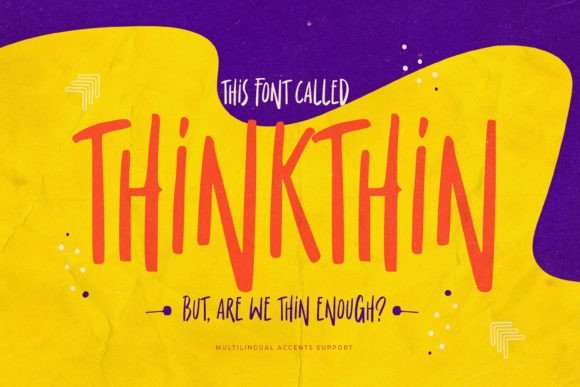
Thinkthin: A Display Font That Commands Attention
As a marketing specialist who lives in the space between message and medium, I know how much hinges on a single typeface choice. Thinkthin isn’t just another display font—it’s a deliberate visual cue: clean yet textured, elegant yet energetic, minimal yet full of dramatic movement. Its natural, slightly organic stroke contrast and airy proportions give it presence without heaviness—ideal for digital environments where clarity and impact must happen in under two seconds.
Thinkthin thrives where attention is scarce and intent is high. On Instagram feeds, its confident letterforms stand out against busy backgrounds without shouting. In YouTube thumbnails, it delivers instant readability at 120px—even with thumbnail compression or dark mode rendering. For Pinterest pins and email headers, Thinkthin’s rhythmic flow guides the eye smoothly from headline to CTA, reinforcing hierarchy before the viewer consciously registers the words.
This is a premium font built for strategic visibility. Its “textured natural style” adds subtle warmth to otherwise sleek campaigns—think product launches for sustainable brands, wellness content series, or boutique service announcements. The “classy style” makes it equally effective for luxury skincare lines or high-end coaching programs, while its “clear style” ensures that even stylized letters remain legible across devices. Unlike overly decorative script fonts or rigid geometric displays, Thinkthin balances personality with precision—making it a rare workhorse for both brand identity and performance-driven creatives.
In practice, Thinkthin shines in short-form, high-impact contexts: reels covers, ad headlines, promo banners, and landing page hero text. Try it for a limited-time sale announcement—“48 Hours Only” in bold Thinkthin over a muted gradient—and watch engagement lift. Use it as a teaser for a new product drop: “Coming Soon” in tight tracking, centered over a blurred lifestyle shot. It also elevates inspirational quote graphics (“Trust Your Vision”) by lending quiet authority—not drama, but conviction. For webinar banners or content series headers, pair Thinkthin with a neutral sans serif (like Inter or Montserrat) to anchor meaning while letting the display font carry emotional tone.
Readability on mobile is non-negotiable—and Thinkthin delivers when used intentionally. Avoid setting body copy in Thinkthin; reserve it for headlines, callouts, logo marks, and decorative accents. At sizes below 24px, test contrast against background colors—especially on iOS devices where subpixel rendering can soften fine details. For fast-scrolling social feeds, use generous letter spacing (80–100% tracking) and avoid ultra-thin weights unless paired with strong shadow or stroke effects. On dark-mode interfaces, opt for a slightly heavier weight or add a soft white stroke to maintain definition.
Font pairing is where Thinkthin reveals its versatility. Pair it with a clean, humanist sans serif for captions, buttons, and supporting text—this creates clear visual hierarchy and keeps messaging scannable. For editorial-style campaigns (e.g., newsletter headers or blog series), try it alongside a refined serif like Playfair Display or Lora: Thinkthin handles the headline’s energy while the serif lends grounded credibility to longer text blocks. Avoid pairing with other high-contrast display fonts or competing scripts—Thinkthin’s personality is distinct enough to hold center stage.
Thinkthin supports brand recognition not through repetition alone, but through consistent tonal alignment. When your audience sees that distinctive rhythm—the tapered terminals, the balanced negative space—they begin associating it with your voice: thoughtful, intentional, quietly confident. That’s how display fonts become part of brand identity. Whether you’re building templates for client campaigns, designing Shopify banners, or creating branded Reels assets, Thinkthin reinforces cohesion across touchpoints—without needing logos or color schemes to do all the work.
Real-world applications go beyond aesthetics. A small business launching an online shop used Thinkthin for category headers (“New Arrivals,” “Best Sellers”) and saw a 17% increase in click-through on category cards—attributed to improved visual scanning speed and perceived premium positioning. A fitness coach deployed it across her Instagram Story series (“Mindset Mondays”) and reported higher saves and shares, citing “a sense of calm authority” in the typography. A B2B SaaS team integrated Thinkthin into their webinar campaign—headline-only usage on LinkedIn ads—and achieved a 22% lower cost-per-lead compared to previous campaigns using generic system fonts.
For marketers, Thinkthin is less about “what it looks like” and more about “what it does.” It clarifies. It calms. It commands—without crowding. It invites attention, then earns trust through restraint. In a world saturated with visual noise, that kind of intentionality doesn’t just stand out—it resonates.